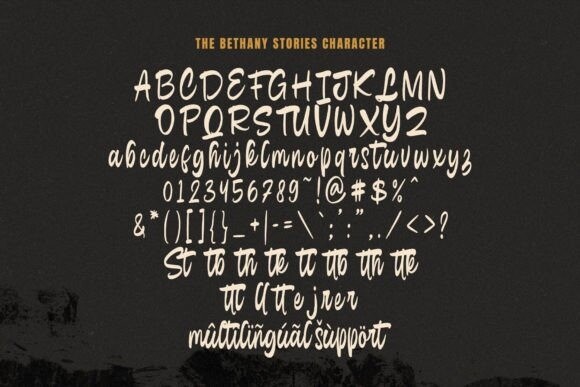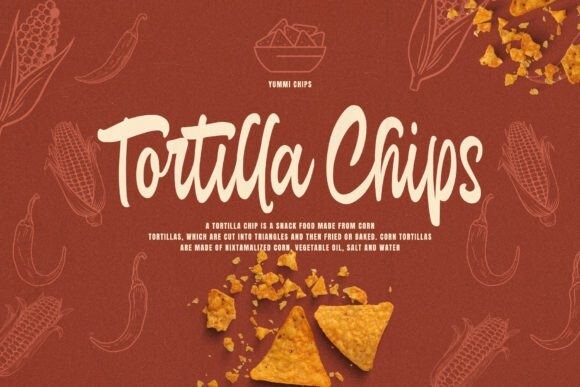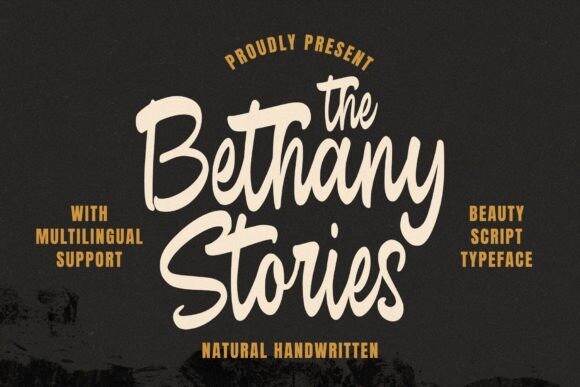
The Bethany Stories Font
Designer: Damarletter
Bethany Stories Font, a vivacious and audacious handwritten script that marries the personal touch of manual lettering with the striking prowess of a statement font. This articulate blend of bold strokes and prominent characters portrays the very essence of narration and expressivity. Configured to etch an enduring mark, Bethany Stories is the prime choice for initiatives that pique interest and aim to transmit potent messages. This font, with its hardy and fluid script, mirrors the natural ebb and flow of human handwriting, imprinting a lively and genuine touch to your projects. Its audacious character is especially apt for headlines, brand logos, and promotional content where the text needs to command attention and grip the audience.
Bethany Stories is a font that champions fearless creativity and expression like no other. Each carefully crafted letter lends itself to the telling of a unique tale, allowing your words to reverberate with a personal and impactful tone. Whether your creative venture involves designing book covers, orchestrating advertising campaigns or drafting inspiring quotations, Bethany Stories adds an indelible and expressive touch to your projects. Unleash the daring, narrative-saturated essence of Bethany Stories, and let your designs strike a chord with its commendable script.